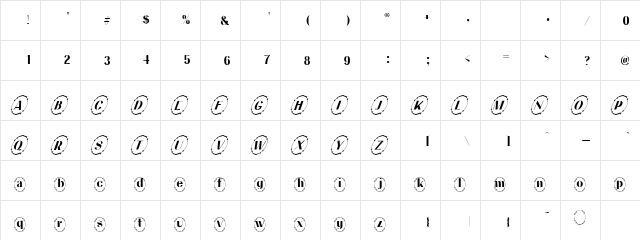
QintarCapitalsItalics Regular
Design Context for QintarCapitalsItalics Typeface
QintarCapitalsItalics takes a measured approach to typography — its balanced proportions and neutral character make it a reliable workhorse for both digital and print work. The slanted form adds forward momentum and visual energy.